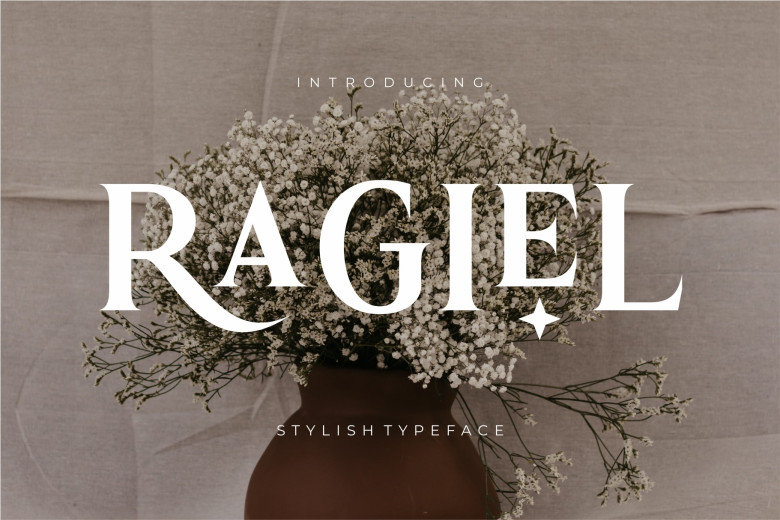
Ragiel Font
Ragiel was inspired by the iconic minimalist Logo to design templates, videos, advertising branding and logos using it as inspiration.
Ragiel Serif Font